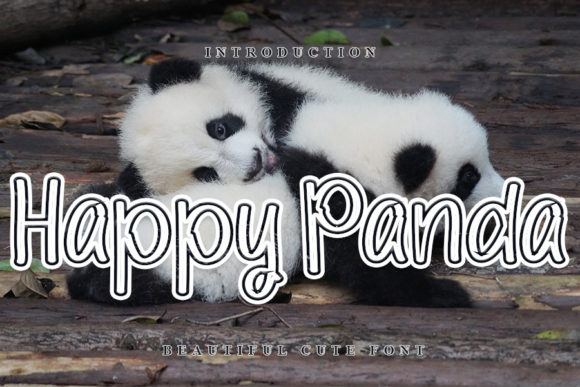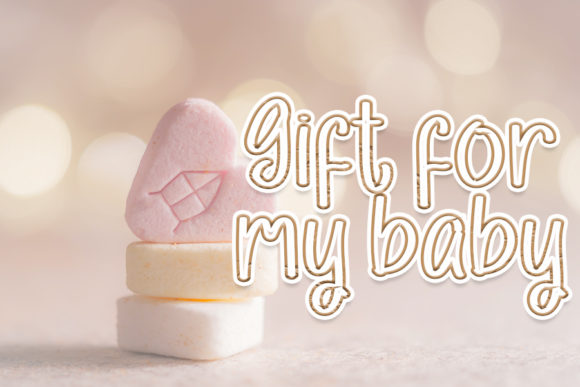
About Happy Panda Font
Happy Panda is a beautiful and relaxed handwritten font. Casual and whimsical, this font will fit a variety of designs. Add it to your most creative ideas and notice how it makes them come alive!